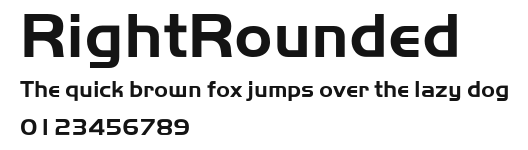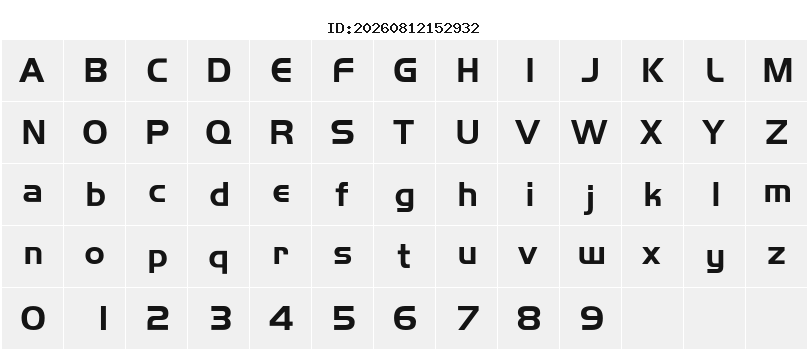
• Font Name: RightRounded
• Full Font Name: RightRounded
About RightRounded.ttf
RightRounded.ttf is a modern, elegant sans-serif font designed for ultimate readability and visual harmony. Perfect for branding, headlines, web design, and print materials.